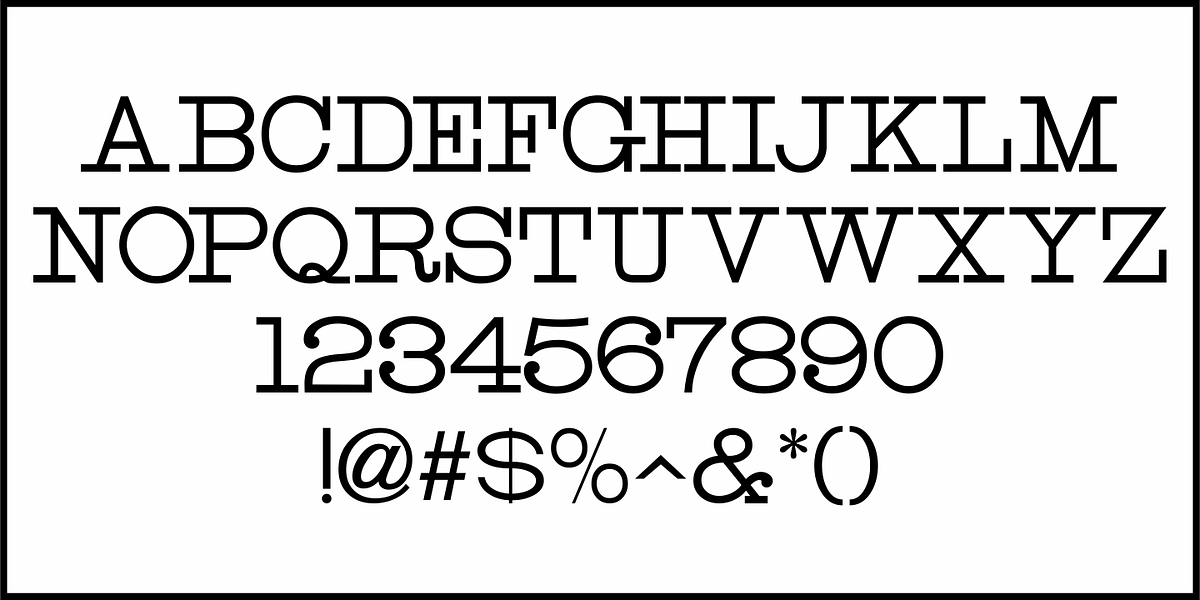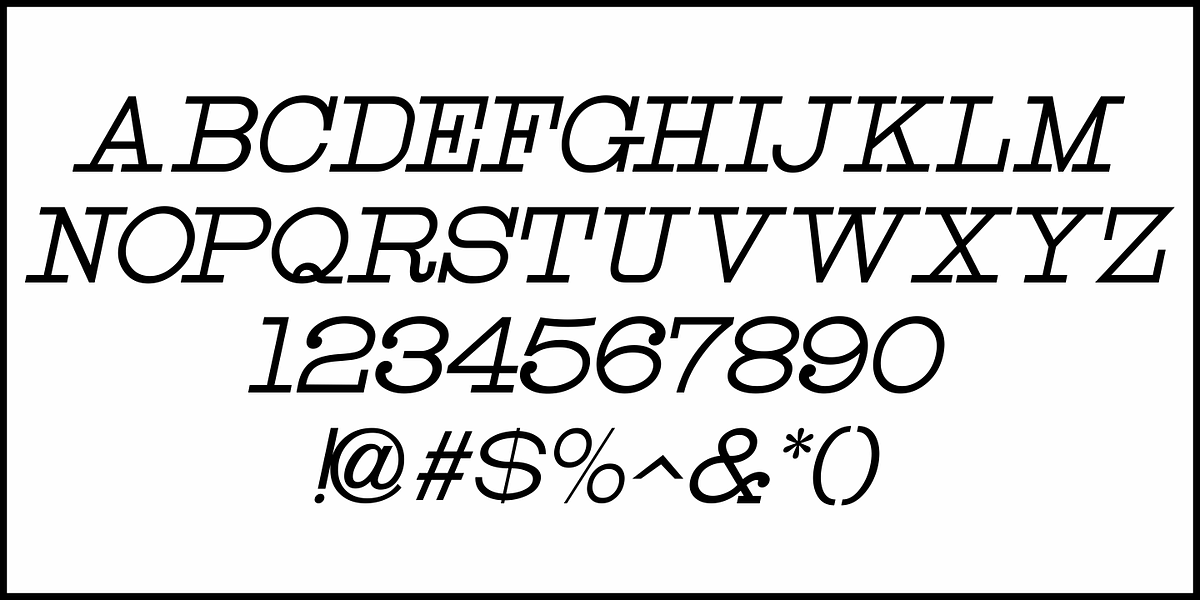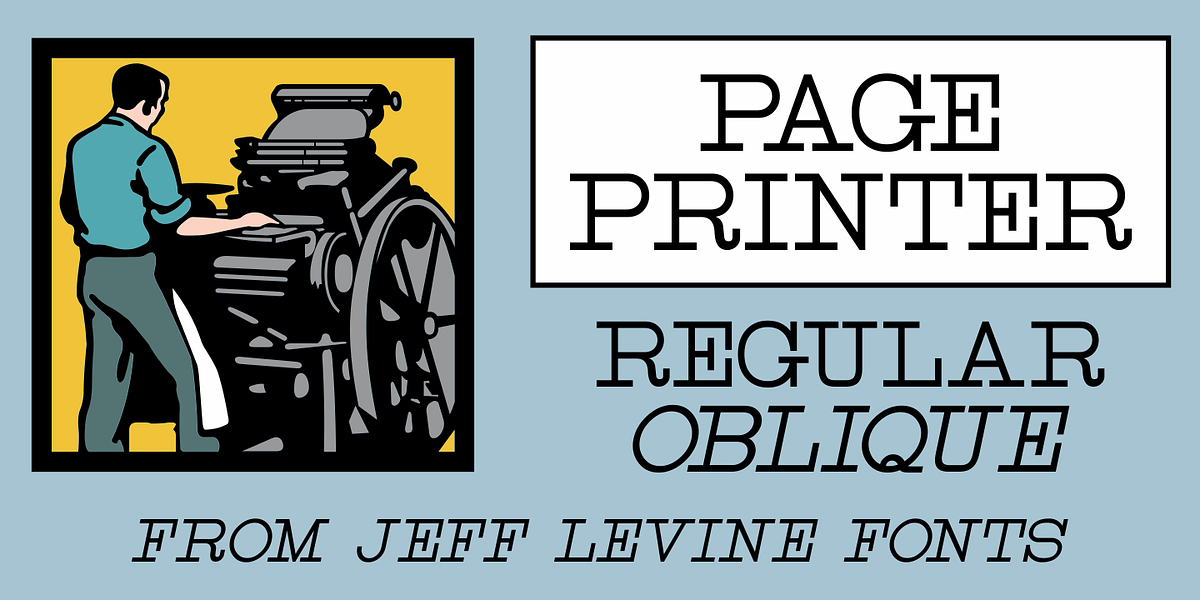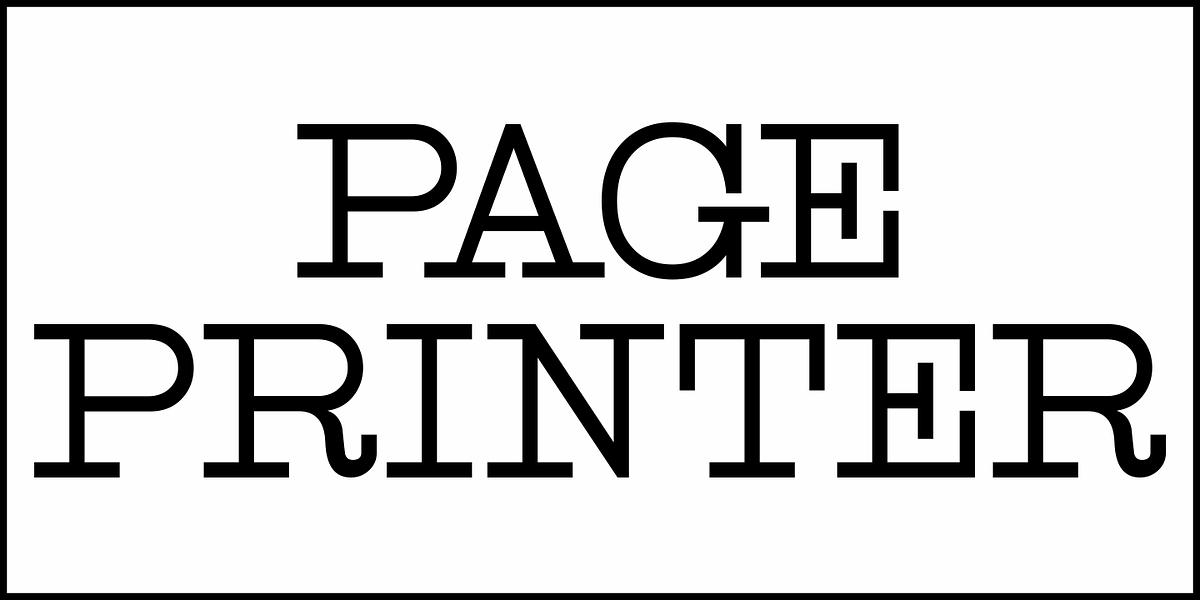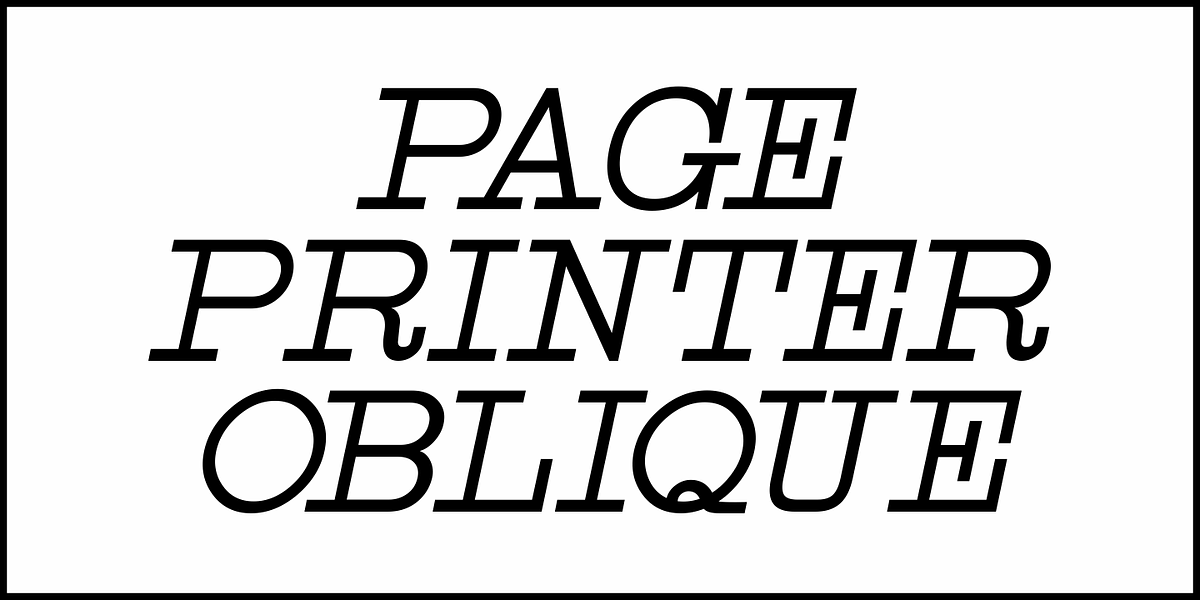
Page Printer JNL
Page Printer JNL was inspired by “Skeleton”, from the William H. Page wood type foundry circa 1848. Its name is a play on both Page’s surname as well as contemporary desktop printers.
Page Printer JNL is available in both regular and oblique versions.